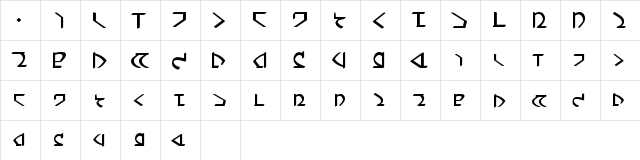
Dwemer Bold
| Foundry | Neale Davidson |
| Designer | Neale Davidson |
Design Context for Dwemer Typeface
Dwemer takes a measured approach to typography — its balanced proportions and neutral character make it a reliable workhorse for both digital and print work. The heavy weight commands attention and anchors typographic hierarchies.